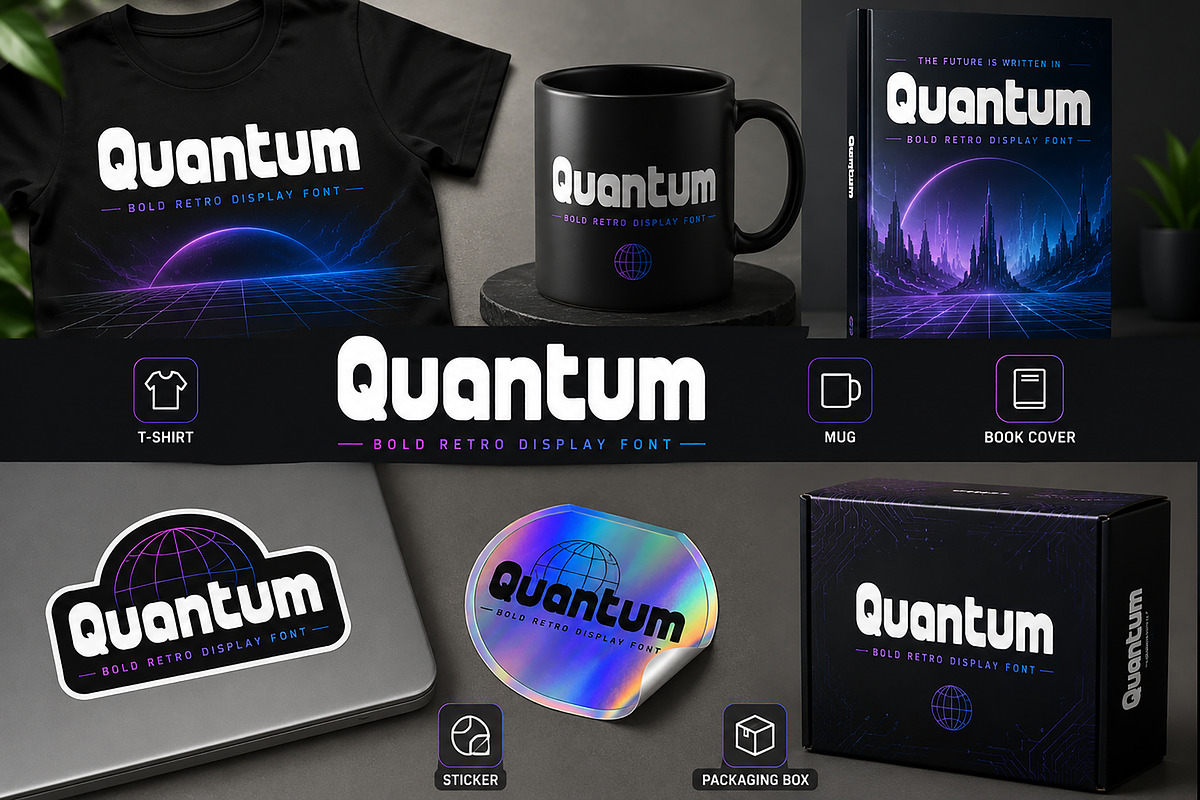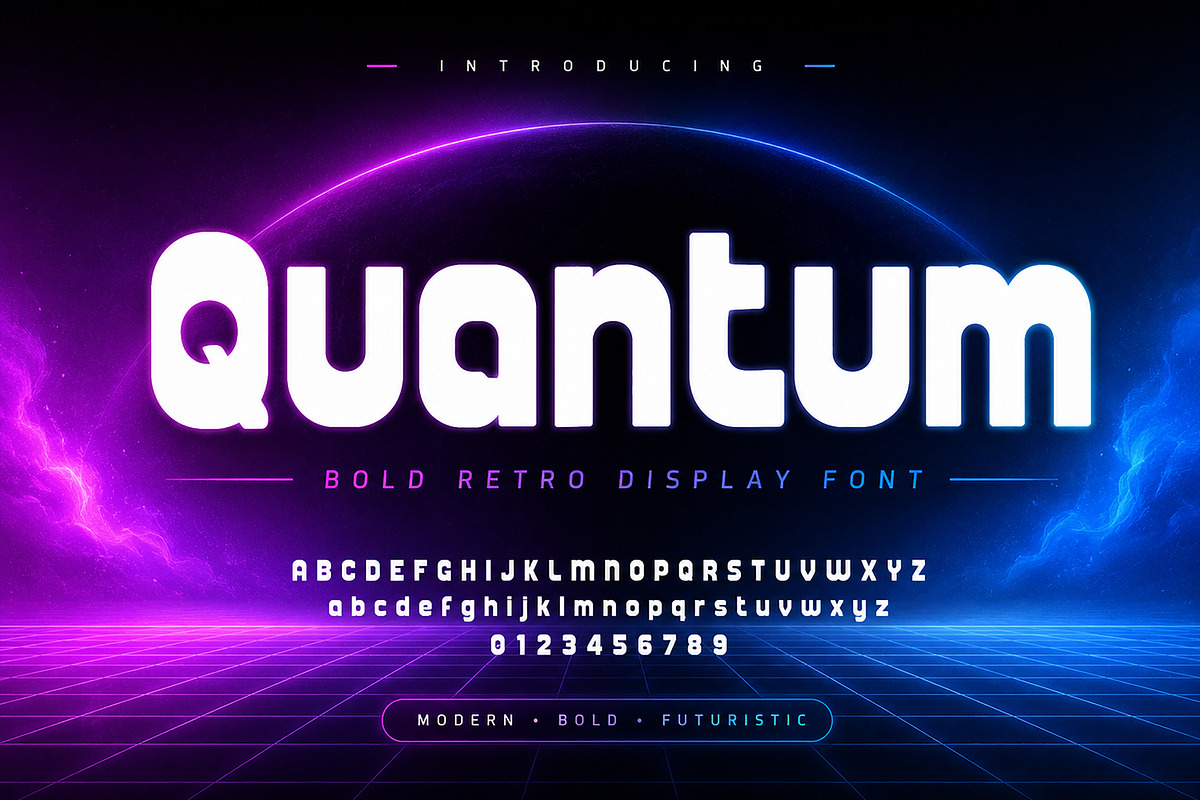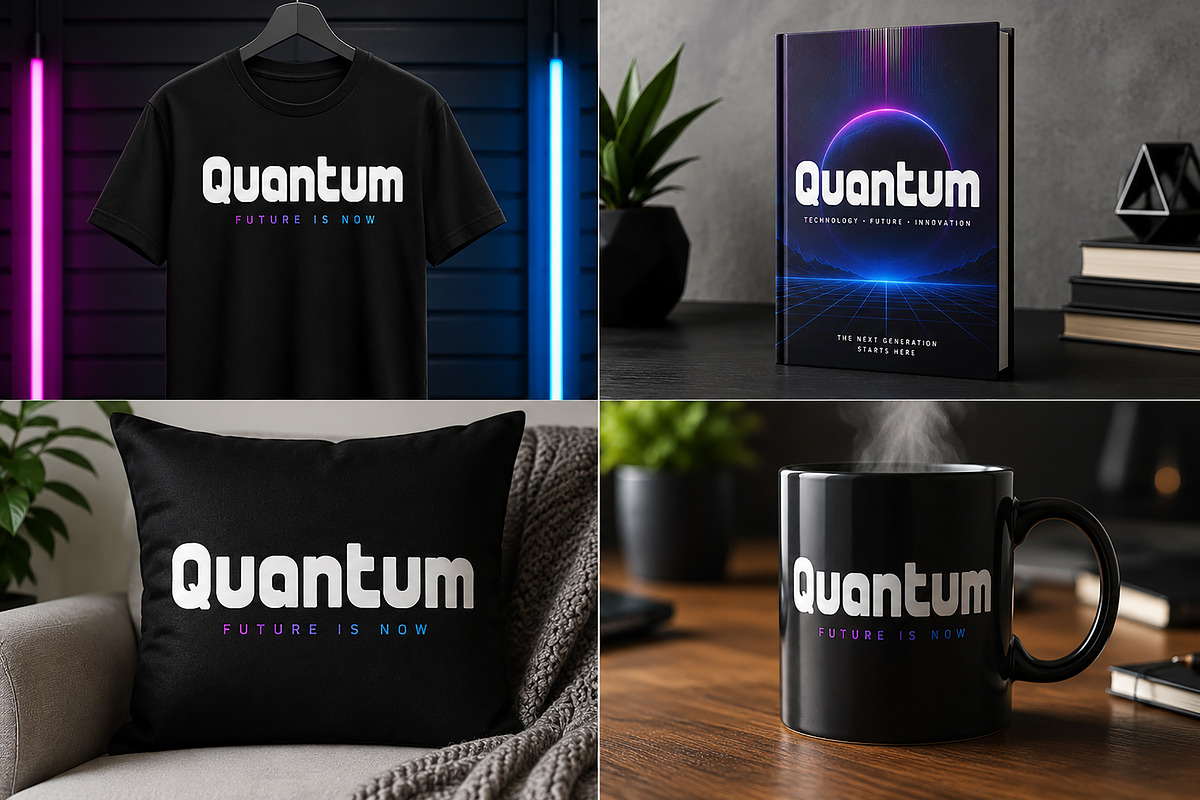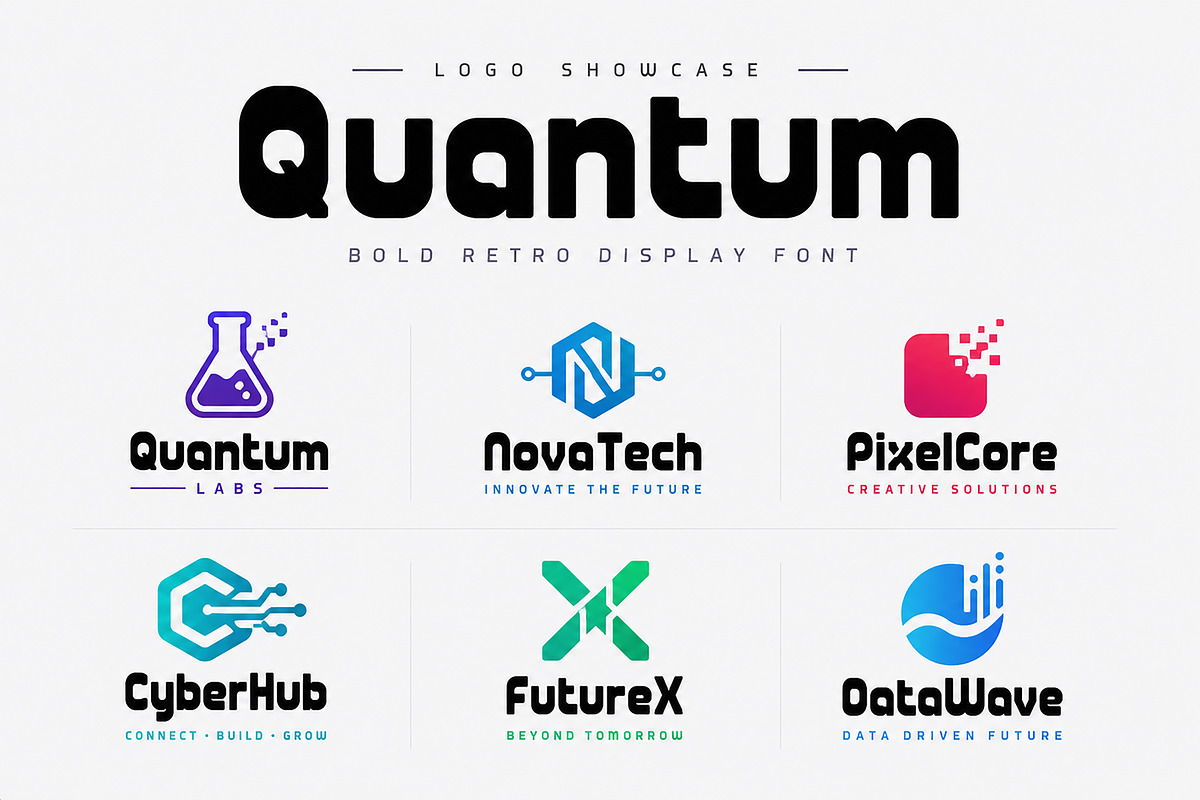
Quantum
Quantum – Bold Retro Display Font
Introducing Quantum, a bold retro display font designed to make a powerful statement. With its thick rounded letterforms, smooth curves, and futuristic character, Quantum perfectly blends vintage inspiration with modern design trends.
Whether you're creating gaming graphics, tech branding, YouTube thumbnails, posters, packaging, logos, apparel, social media content, or eye-catching headlines, Quantum delivers a strong visual impact that instantly grabs attention.
Its distinctive display style makes it ideal for projects that require a fun, futuristic, bold, and memorable typographic presence.
Gaming Titles
Tech Branding
YouTube Thumbnails
Posters & Flyers
Apparel Design
Packaging
Product Branding
Headlines & Display Text
Modern Retro Projects
Uppercase Letters
Lowercase Letters
Create bold, futuristic, and unforgettable designs with Quantum.
Quantum is a bold retro display font featuring rounded letterforms and a futuristic aesthetic. Perfect for logos, gaming projects, tech branding, posters, packaging, apparel, YouTube thumbnails, and modern display typography.